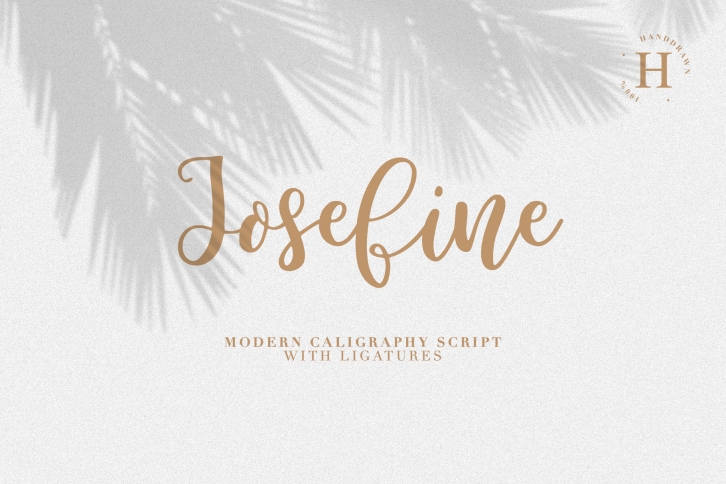
JOSEFINE SCRIPT is a beautiful font that was designed by MediaLab. It's a great choice for designers and creatives who need such a font. It was released on June 20, 2019 and the file size is 14.41 MB. JOSEFINE SCRIPT may give a more youthful, expressive and casual look to your project. It is a very beautiful, refined, elegant, and high-quality font.